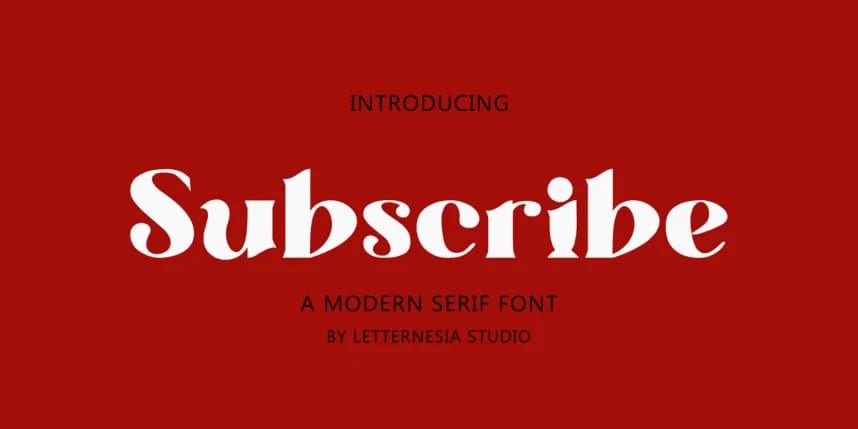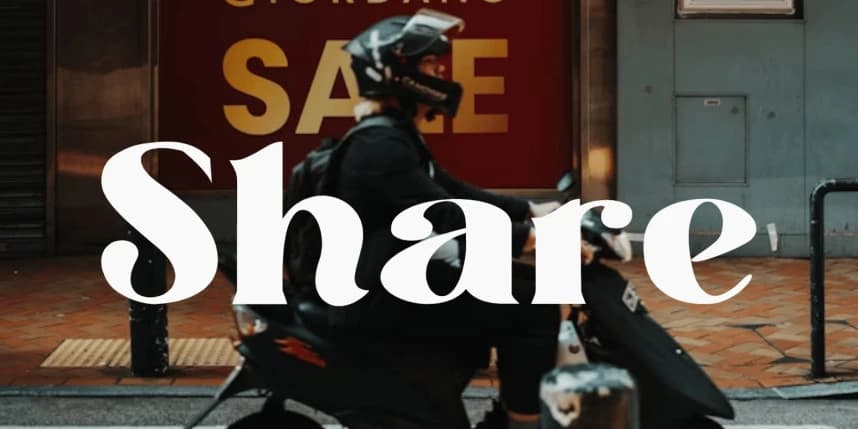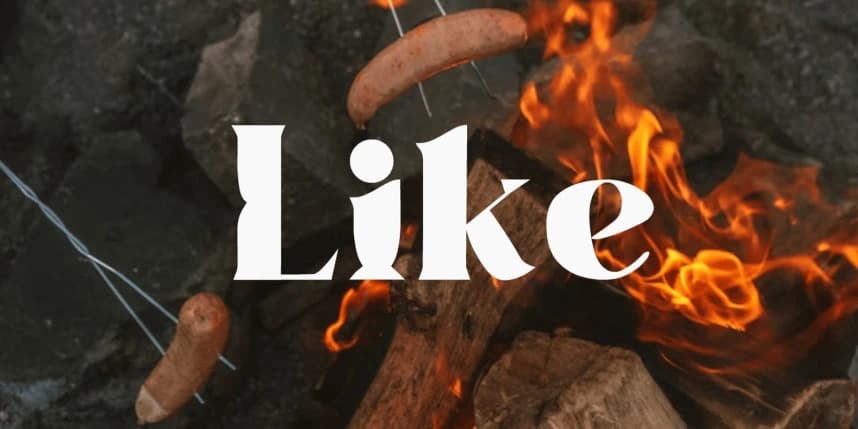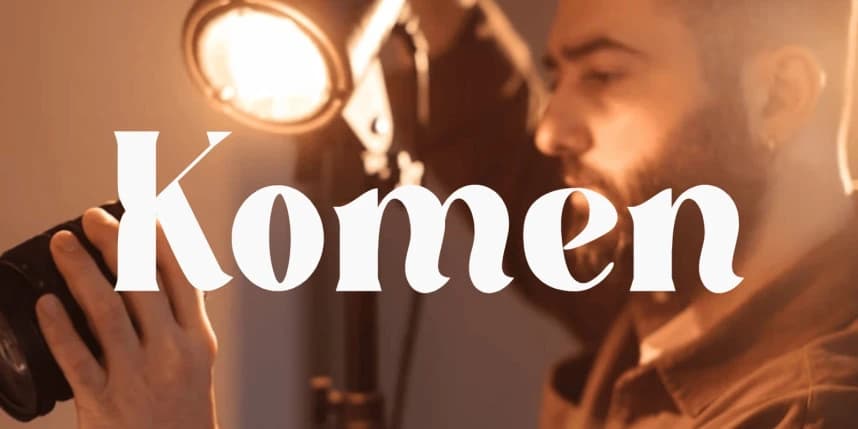
Subscribe Serif Font
Subscribe Serif Font is a display font designed with a modern and friendly style, perfect for capturing attention in a wide range of creative projects. With bold yet soft letterforms, this font is ideal for branding, social media, promotional posters, and even YouTube thumbnails.